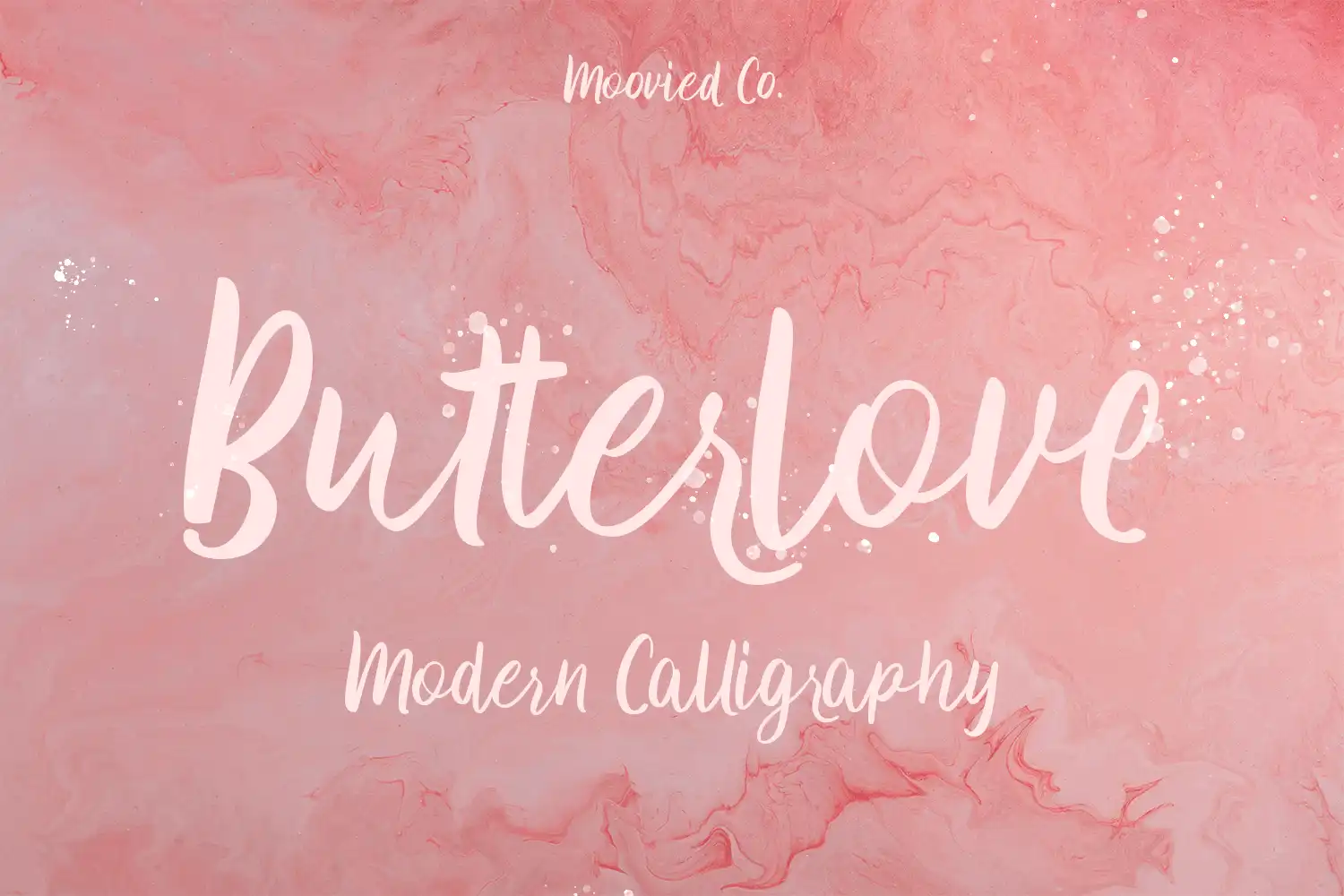
Butterlover Script Love
Butterlover Script Love Font is perfect for romantic bakery branding, love-themed confectionery packaging, Valentine's Day dessert marketing, wedding cake designers, sweet treat social media, and indulgent romance campaigns where culinary love meets sweet passion.
What makes Butterlover Script Love Font exciting is its sweet romantic character with butter-smooth curves that capture the essence of culinary romance and sweet indulgence, making it ideal for brands seeking to convey love, sweetness, and delicious passion.
Butterlover Script Love Font family includes sweet variations: Regular, Bold, Light, Creamy, and Romantic versions, providing designers with comprehensive options for romantic culinary and sweet treat-focused design projects.
This delectable typeface melts hearts like warm butter with its smooth letterforms and loving character that celebrates the sweet intersection of culinary artistry and romantic passion. Butterlover Script Love Font Free Download provides designers with typography that embodies the essence of sweet romance and culinary love stories. The font's distinctive sweet romantic aesthetic makes it perfect for artisanal chocolatiers, romantic restaurants, and specialty dessert boutiques. Its loving design works beautifully for both traditional applications like Valentine's packaging and contemporary uses such as romantic food blogs and sweet treat delivery apps. The carefully crafted flowing strokes ensure excellent readability while maintaining the sweet, passionate atmosphere that defines romantic culinary branding. Whether you're creating wedding dessert branding, romantic dinner promotions, or love-themed bakery identities, this font delivers the authentic sweetness and culinary romance that makes taste buds tingle and hearts flutter, celebrating the beautiful truth that the way to someone's heart is often through perfectly crafted sweet treats made with love.